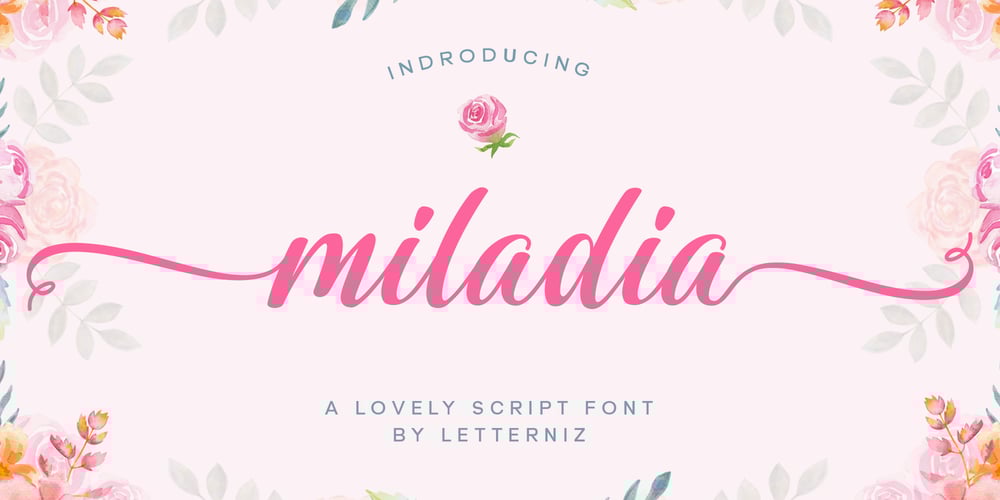
Miladia Font Family was designed by Nizar Bagas Maulana and published by Letterniz. Miladia contains 1 styles and family package options. Miliadia is a handwritten script font. Looks stunning on wedding invitations, thank you cards, quotes, greeting cards, logos, business cards and any other design that requires a handwritten touch.